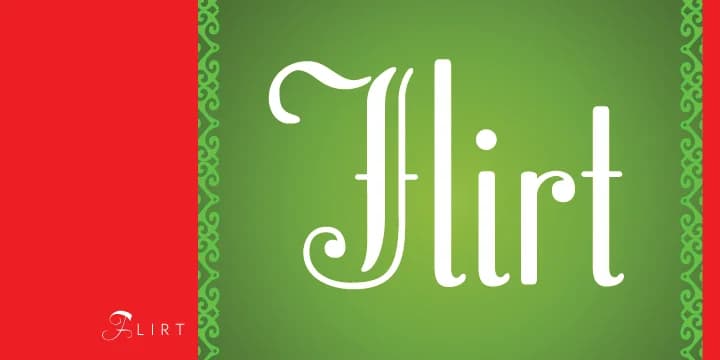
About Flirt Font
Flirt by Canada Type brings back the spirited energy of art deco theater posters, distinguished by its swashy, delicate capitals and aristocratic lowercase letters. Originally sketched in the 1920s era of burlesque and opera entertainment design, this font was rescued from an old Dover specimen book and thoughtfully digitized to suit contemporary needs.
Where Flirt really shines is in its generous character set. You get numerous capital alternates, many featuring those theatrical descending strokes that defined 1920s entertainment posters. Beyond the base alphabet, accented characters support multiple languages, punctuation is complete, and swash variants add visual interest throughout. Rather than borrowing numerals from another typeface, they were redrawn to match the lowercase proportions perfectly. Keep a character map handy to discover every possibility.
Both weights are worth exploring. Regular sits airy and elegant, while bold employs a distinctive strategy: vertical strokes in the lowercase grow inward, horizontal strokes stay unchanged, and uppercase thickness applies only to already-hefty verticals. This produces visual drama without mechanical stiffness. Consider Flirt for vintage wedding invitations, upscale cosmetics labels, speakeasy and cabaret event materials, and retro home signage. It speaks to designers drawn to historical theatrical aesthetics and nostalgic branding. Get it on Creative Fabrica.
Flirt Font is a decorative font that shines as a display or heading face. Pair it with a clean sans-serif or serif font for body text β the contrast creates a clear hierarchy while the two styles stay balanced and easy to read.